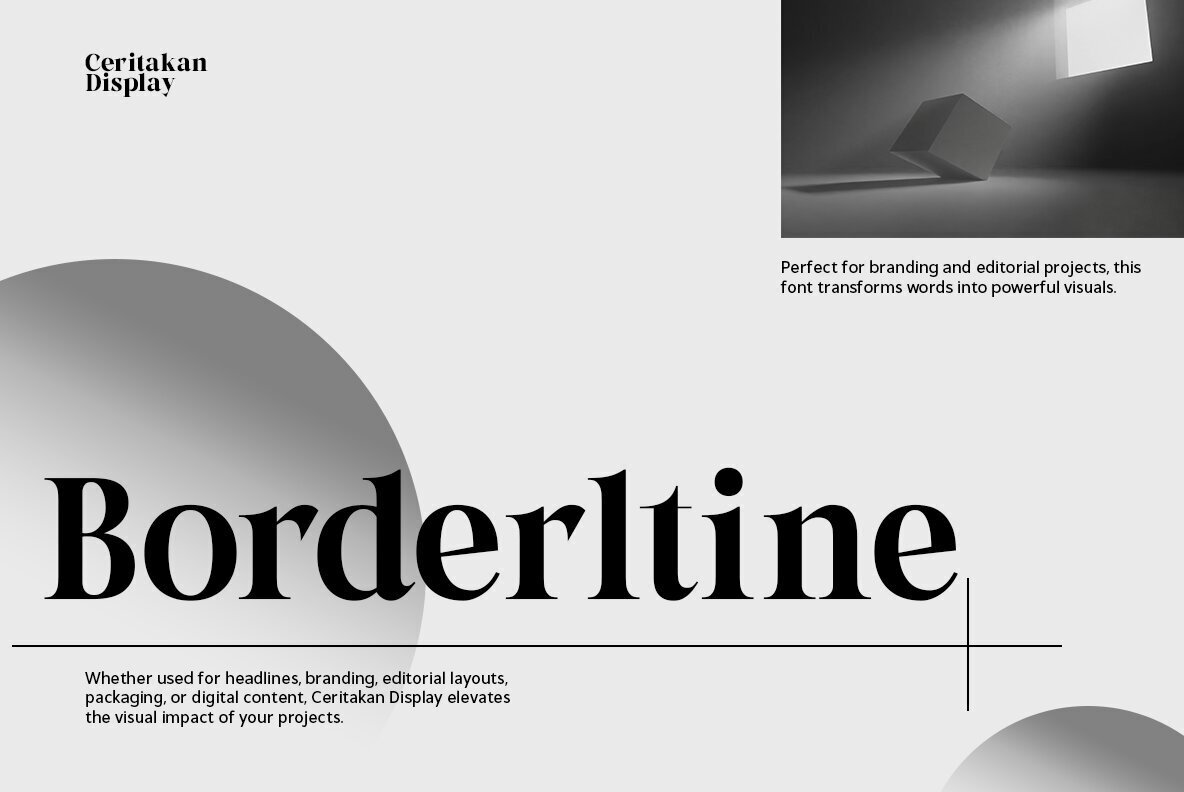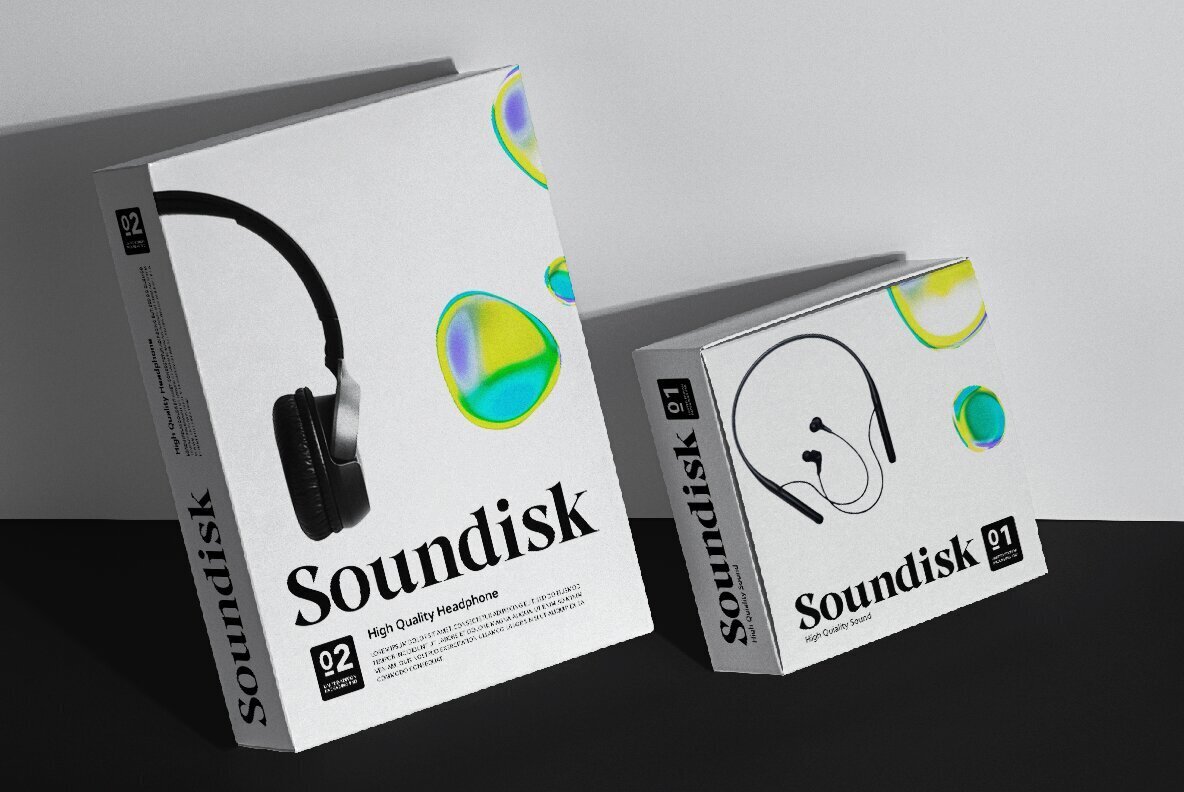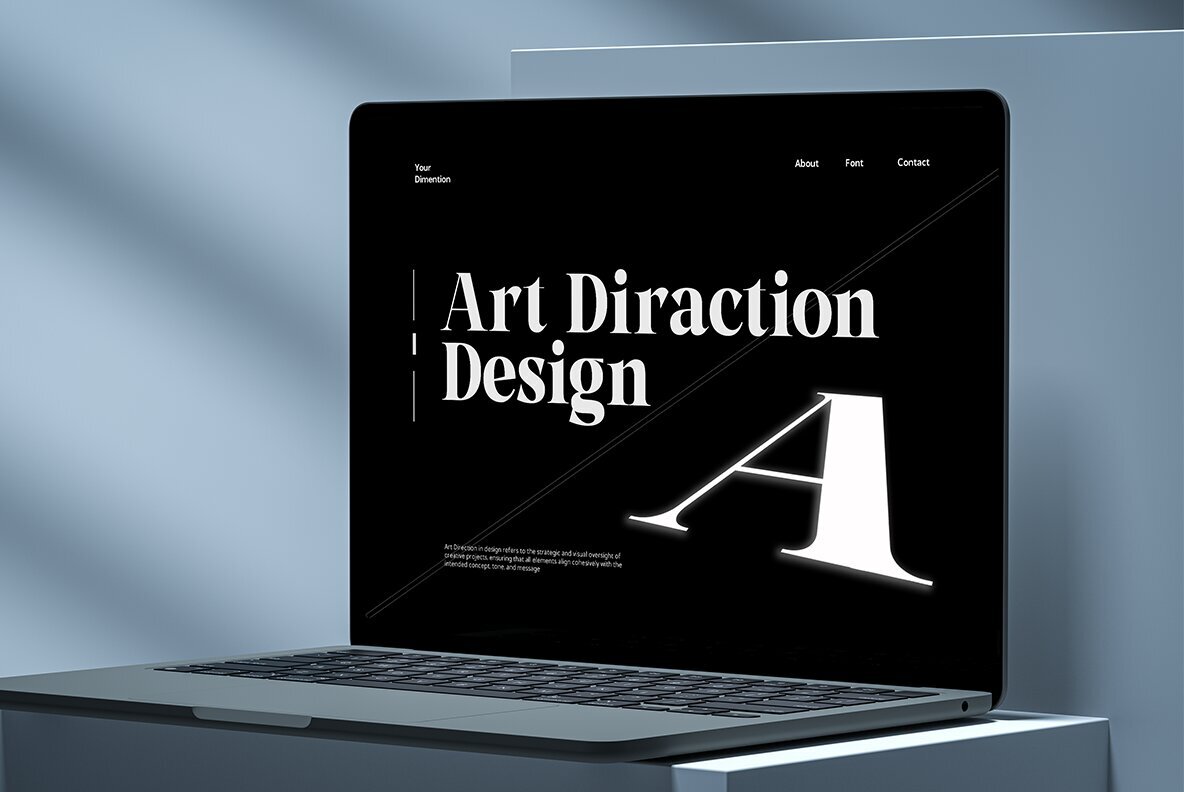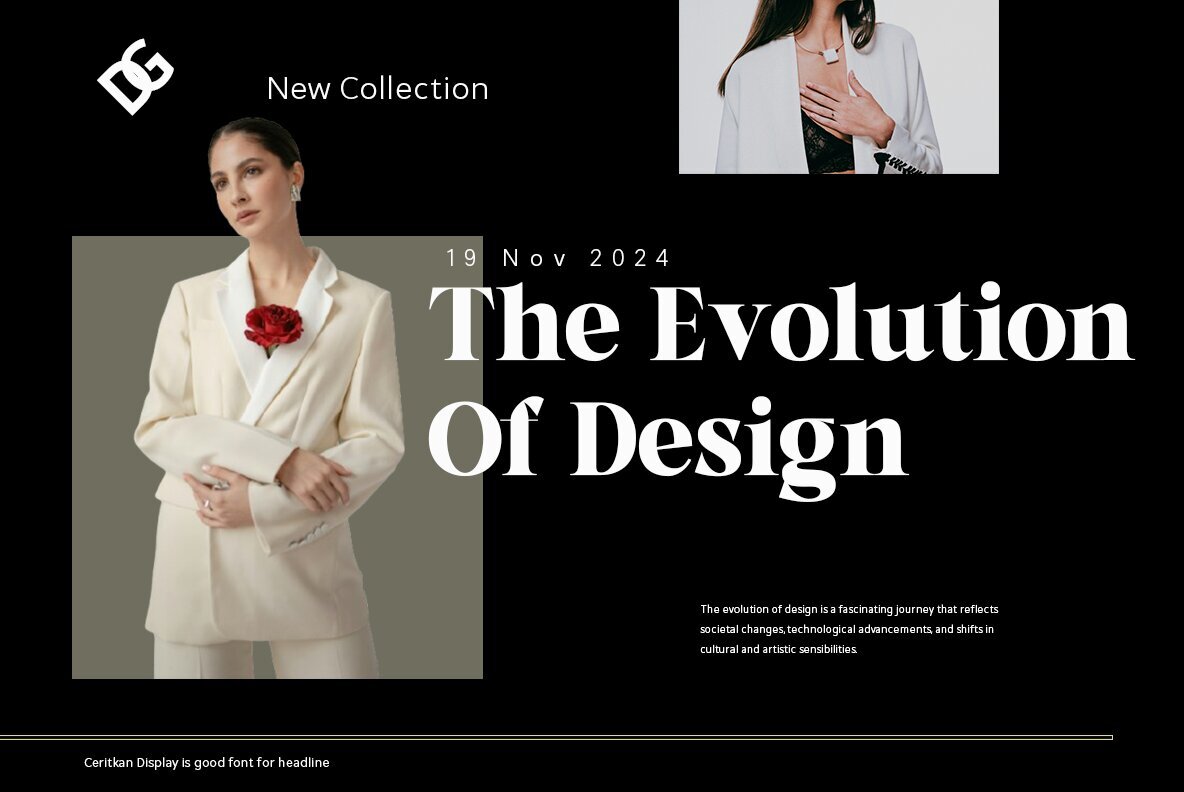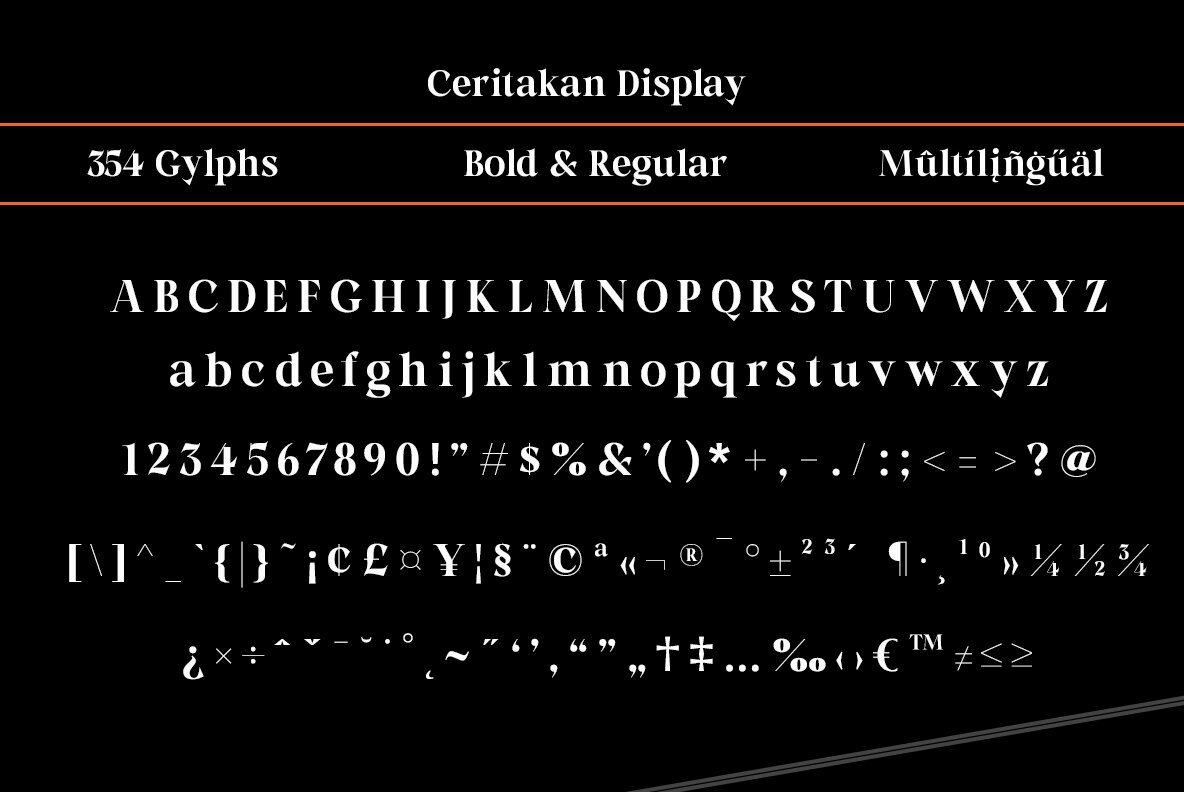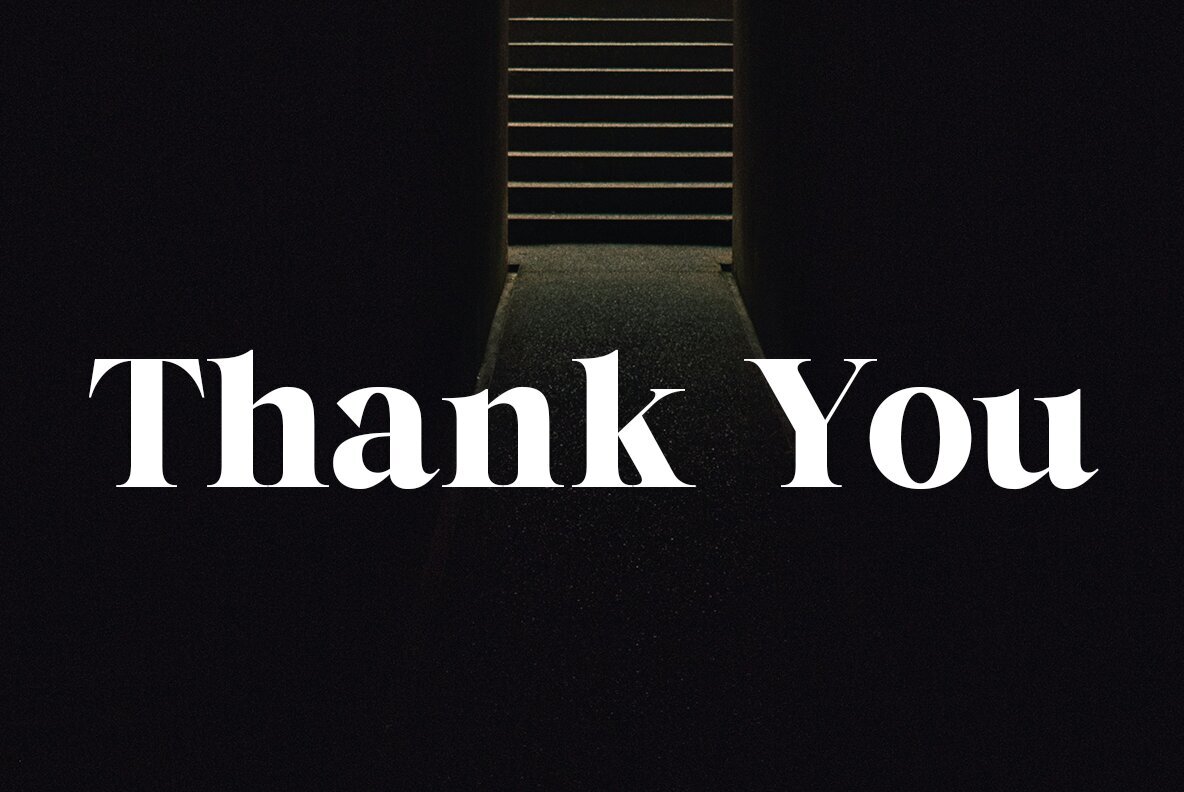
Ceritakan Display Font
Ceritakan Display is a captivating typeface that combines sharp serifs with high contrast and elegantly refined curves, offering a bold and timeless charm. Its modern versatility makes it an excellent choice for projects that require sophistication and visual impact. Ideal for branding, editorial design, and elegant presentations, this font perfectly balances classic aesthetics with a contemporary edge.
This typeface brings together bold serifs and refined curves, each detail reflecting sophistication and adaptability. Ceritakan Display is perfect for designers aiming to create work that exudes confidence and leaves a memorable impression. Convey your story and make a statement with the timeless elegance of Ceritakan Display.